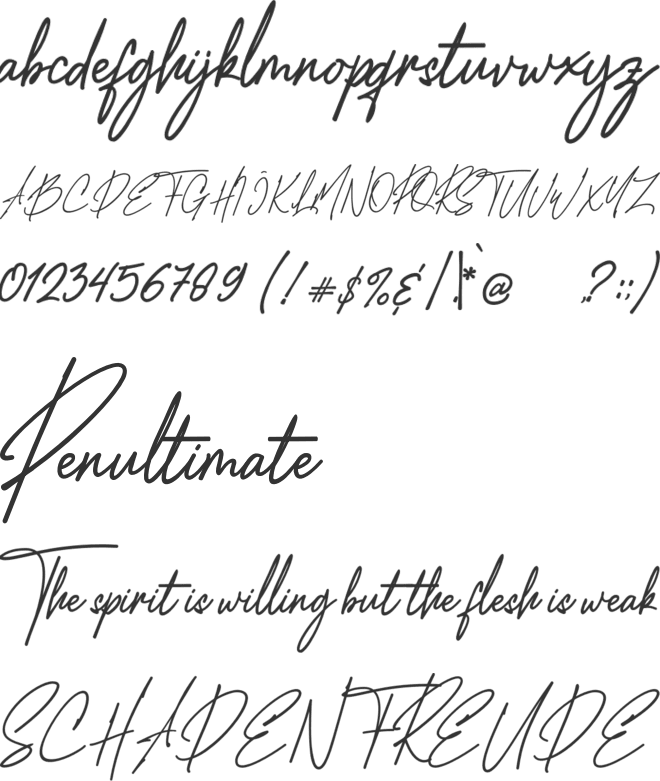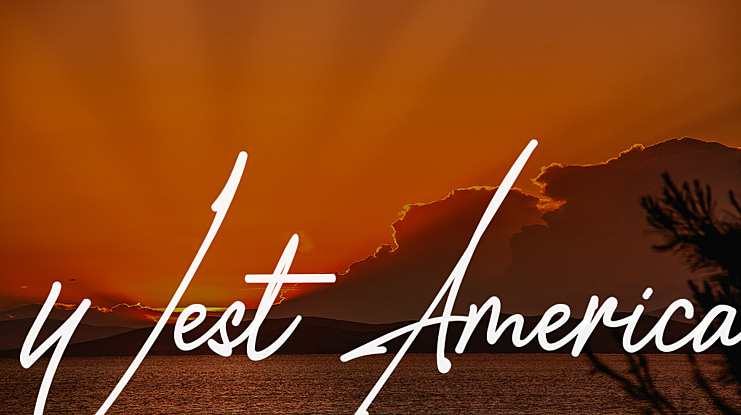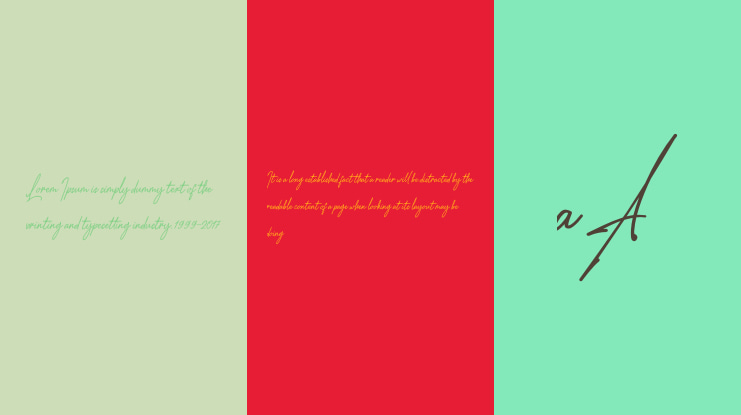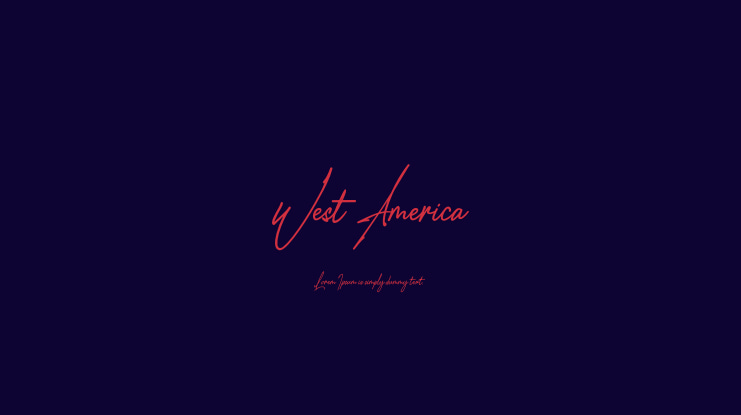
West America Font
This is a handwritten signature typeface created by Mr_Type with a calligraphy flair, described by an elegant touch, perfect for your favorite projects. West America is suitable for many different designs for bussines card, quotes, social media, signature, wedding invitations, advertisements, product designs, label, photography, watermark and more.